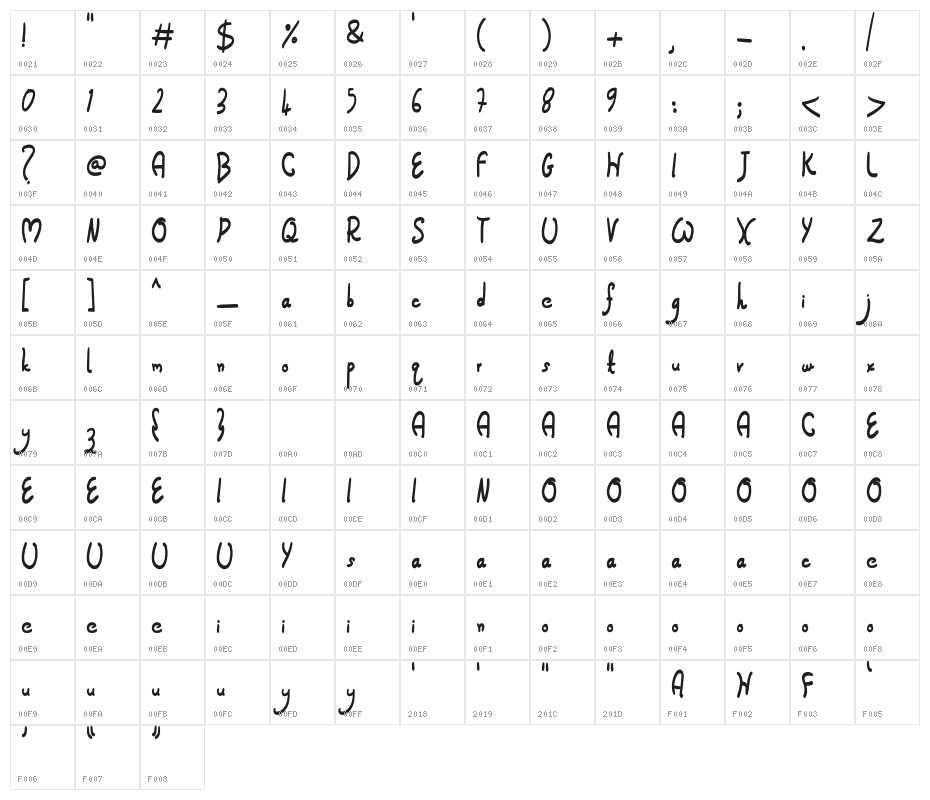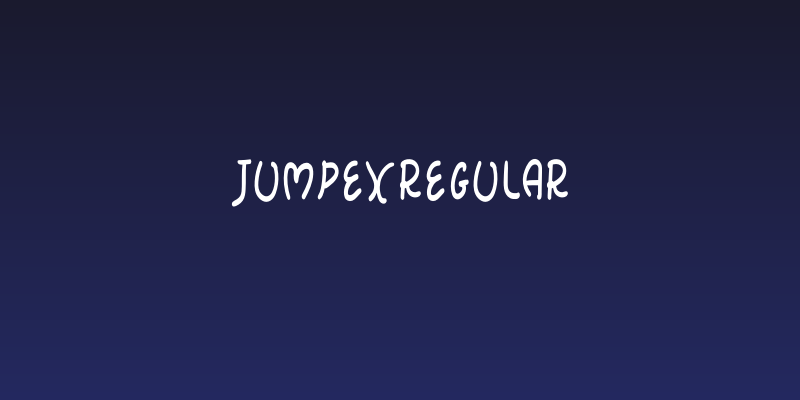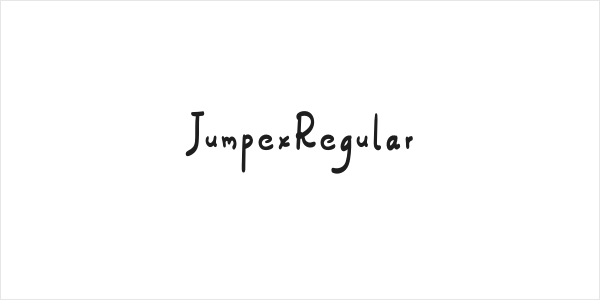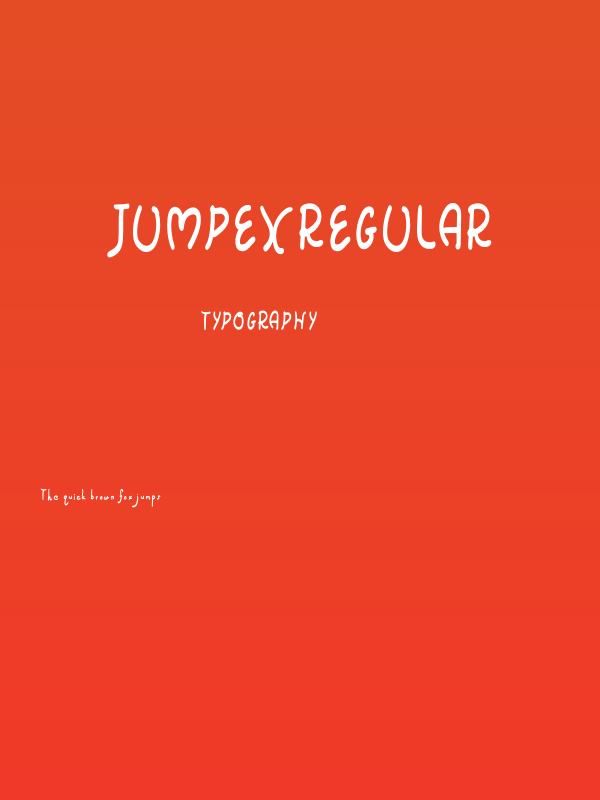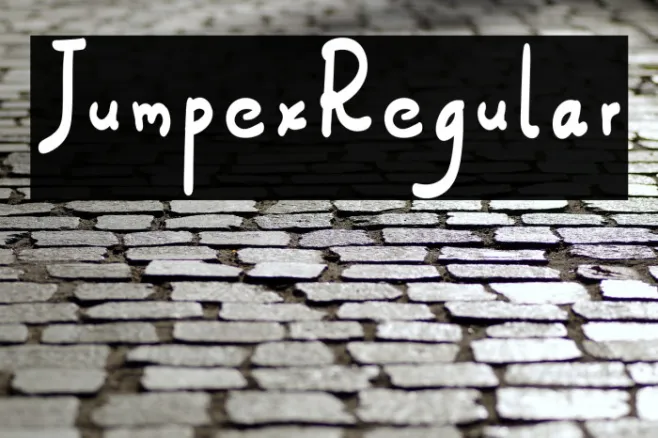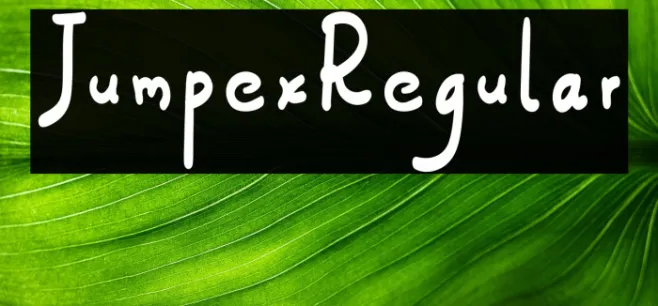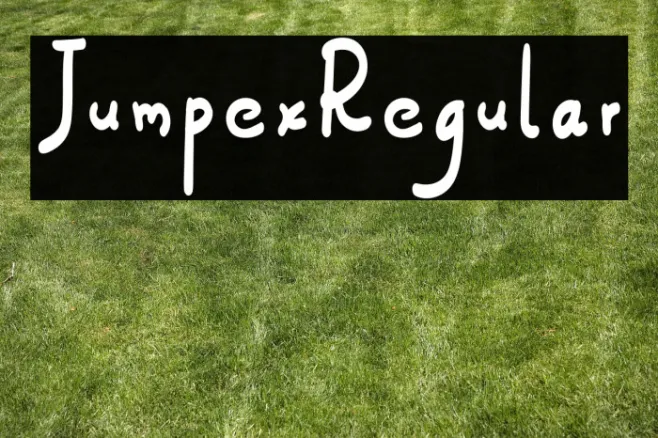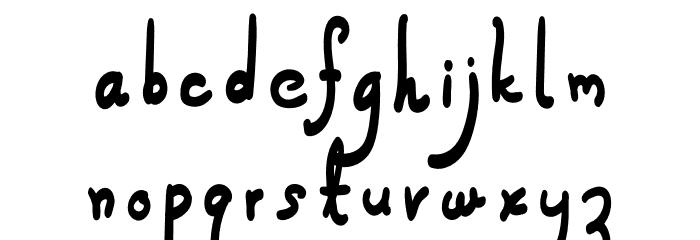
JumpexRegular Font
JumpexRegular Description
This font features a playful and casual handwritten style, characterized by its smooth curves and slightly irregular strokes. The uppercase letters are bold and rounded, while the lowercase letters maintain a consistent flow with a touch of whimsy. The numerals are clear and legible, complementing the overall informal aesthetic. Special characters are creatively designed, adding to the font's unique personality. This font exudes a friendly and approachable vibe, making it suitable for projects that require a personal touch.
| Use Case | Logos, Headlines, Informal text |
| Proposed Projects | Ideal for greeting cards, children's books, casual branding, and social media graphics. |